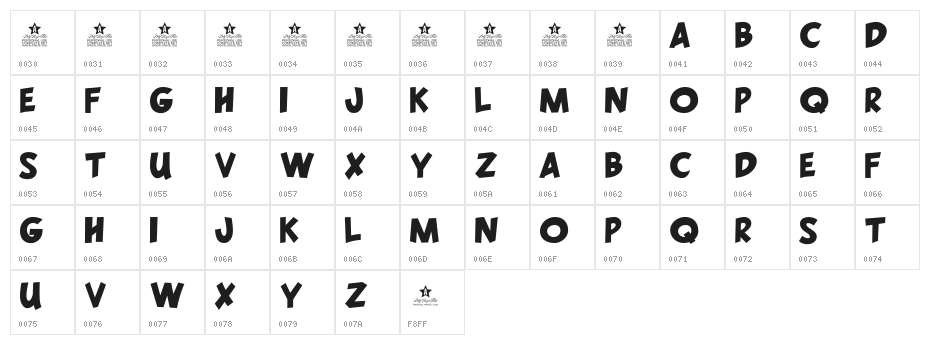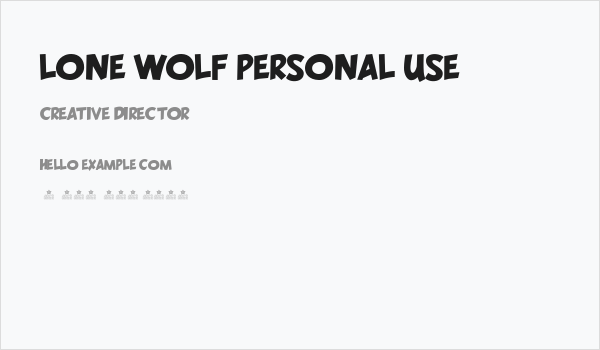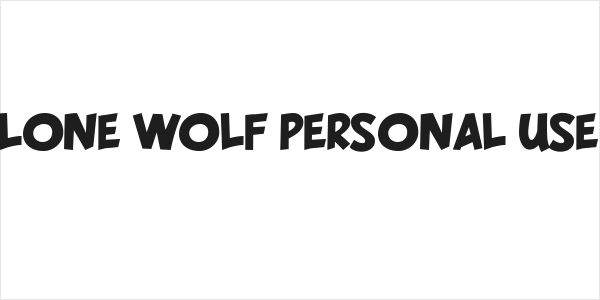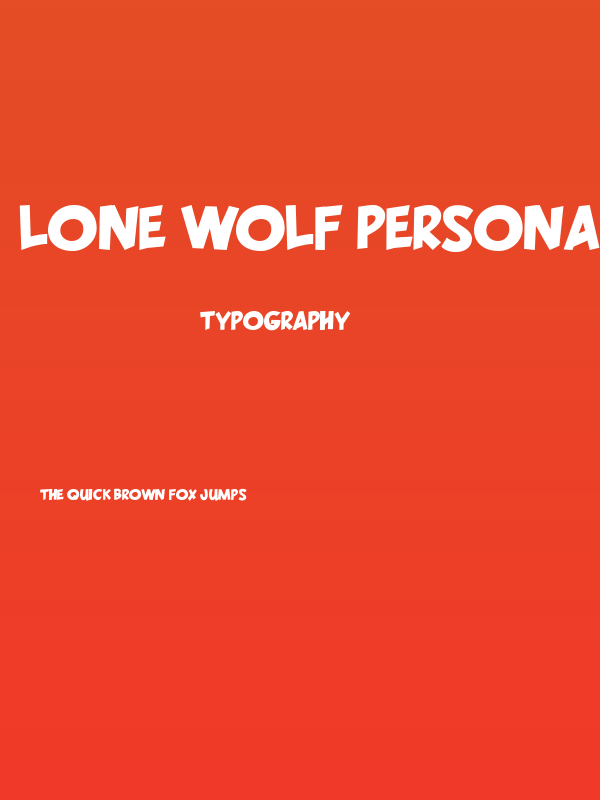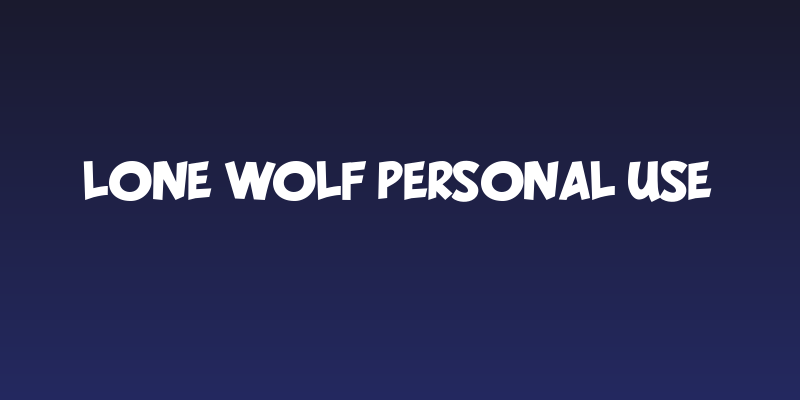
LONE WOLF PERSONAL USE Font
LONE WOLF PERSONAL USE Description
This font features bold, dynamic characters with a playful and energetic style. The letters are slightly slanted, giving a sense of movement and excitement. The strokes are thick and consistent, providing a strong visual impact. The overall design is modern and eye-catching, suitable for projects that require a bold statement. The uppercase letters are particularly striking, with a slight curve that adds a touch of uniqueness. This font is ideal for creative projects that aim to capture attention and convey a sense of fun and enthusiasm.
| Proposed Projects | Ideal for posters, headlines, branding, and any project needing a bold, playful touch. |